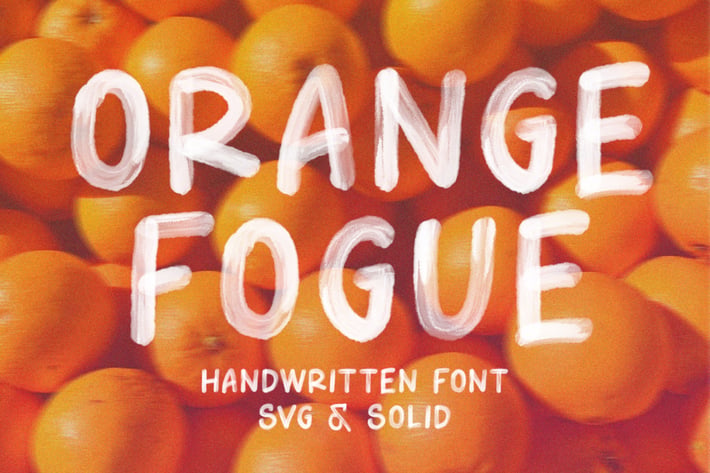
Orange Fogue - SVG Font
Introducing Orange Fogue. A handwritten font available in two styles, SVG and Solid. The SVG style offers a natural paintbrush effect. Perfect for branding, logos, quotes, and more, "Orange Fogue" adds a touch of authenticity to your designs.
Features: Uppercase, Lowercase, Numeral, Punctuation & Multilingual.